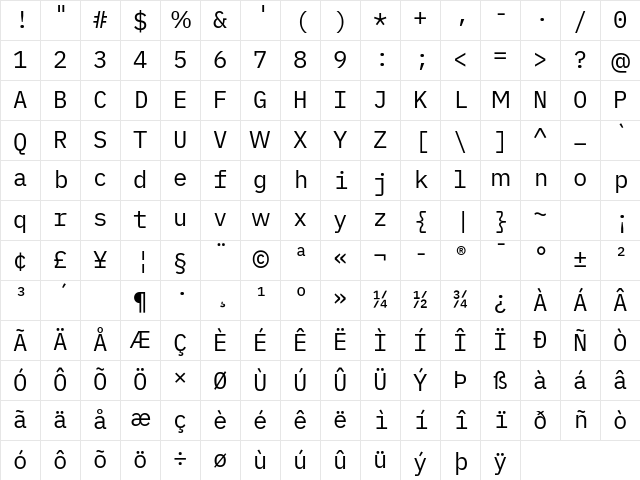
iMWritingDuospace NF Regular
Foundry: Bold Monday
Designer: Mike Abbink, Bold Monday, modified by Oliver Reichenstein
Design Context for iMWritingDuospace NF
iMWritingDuospace NF is a composed and adaptable typeface that performs quietly and consistently across a wide range of design contexts.